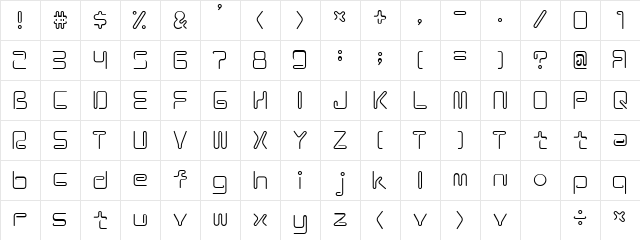
Coil ALr
Style: ALr
Coil Family
Coil ALr
Complete Coil ALr glyph index. Displaying only characters natively supported by Coil ALr font.
Design Context for Coil
Coil is a composed and adaptable typeface that performs quietly and consistently across a wide range of design contexts.